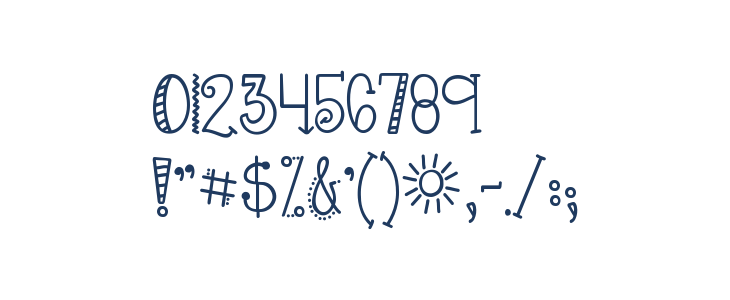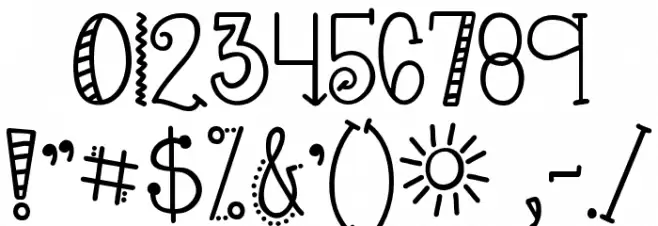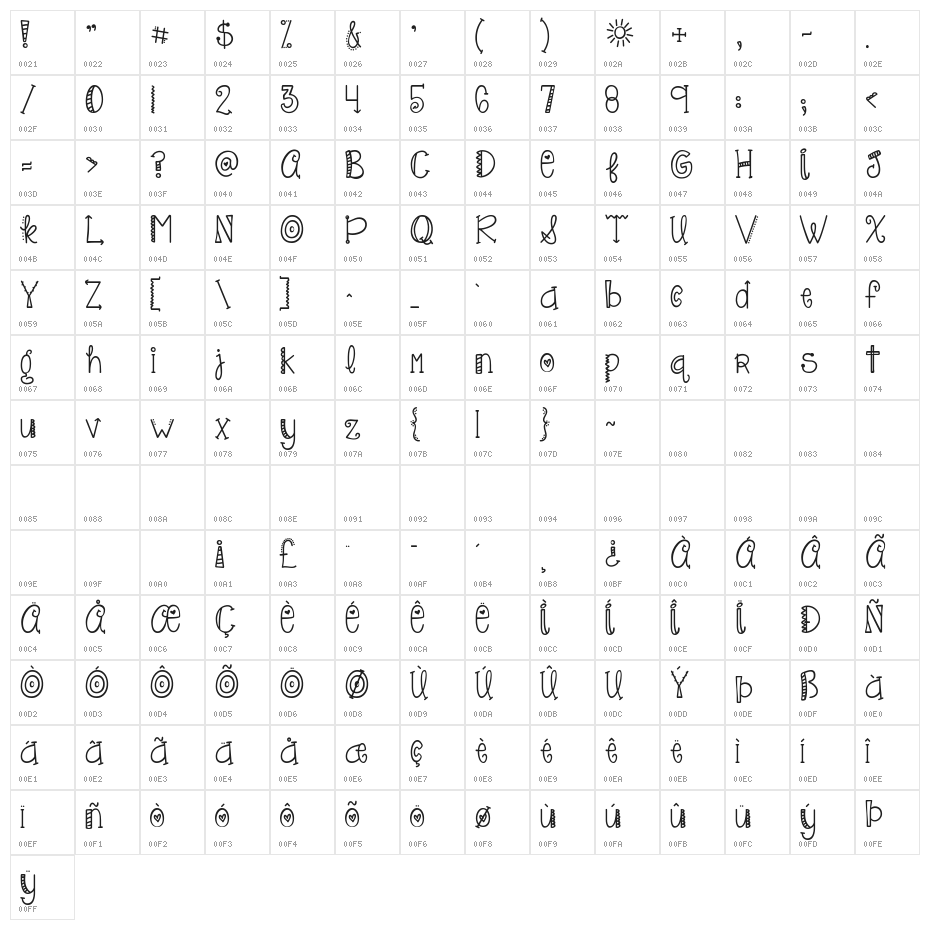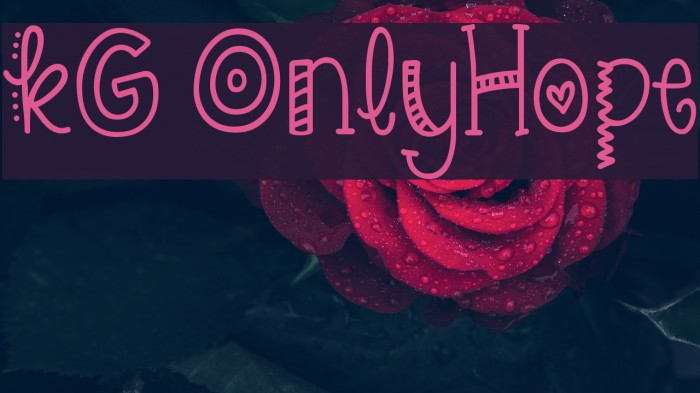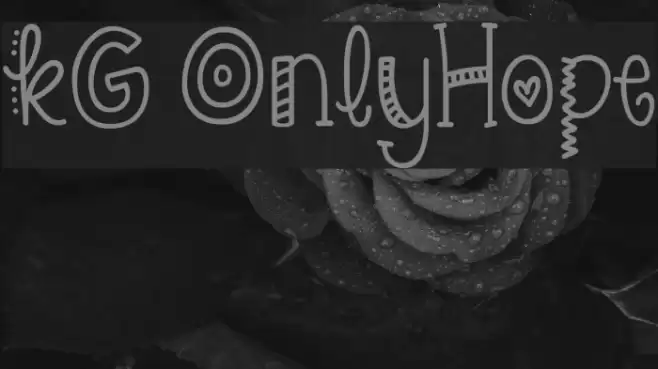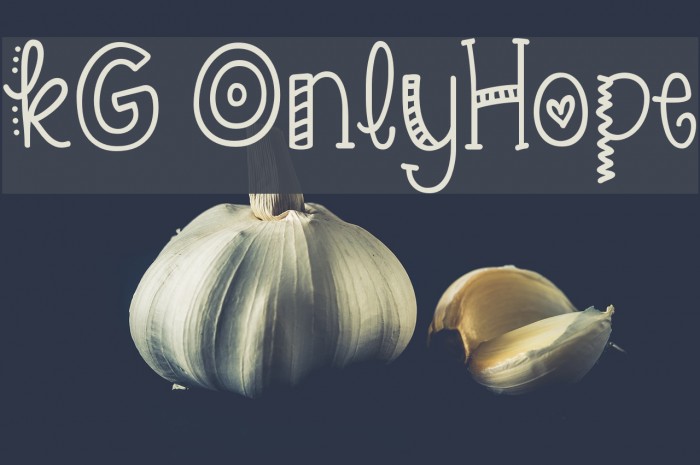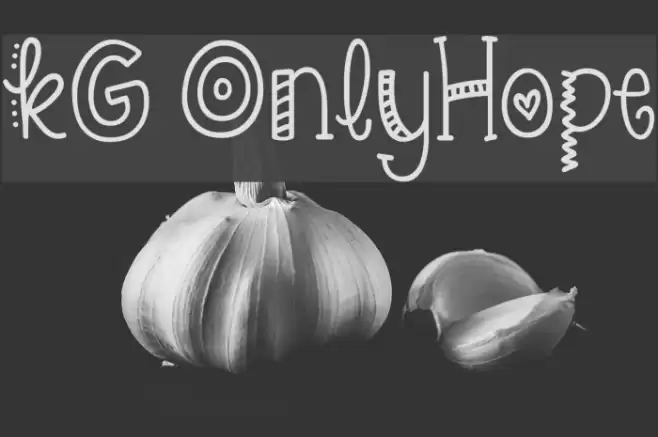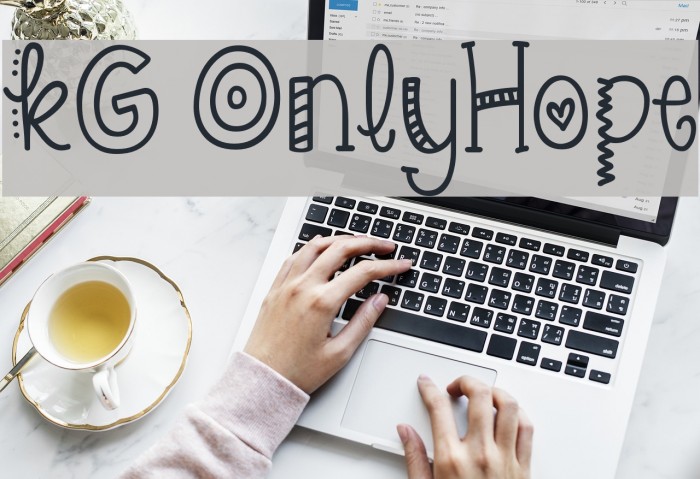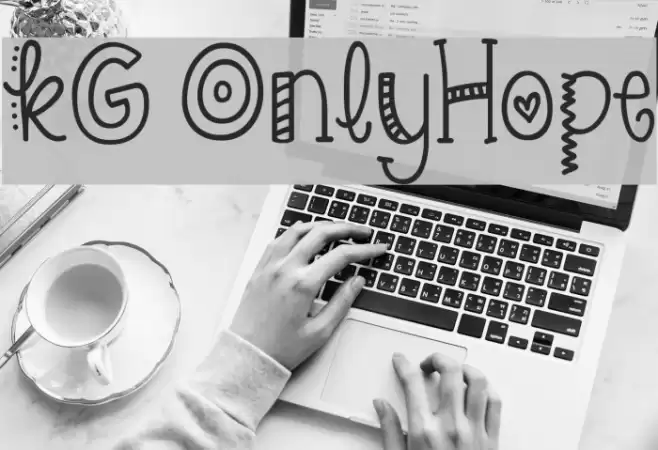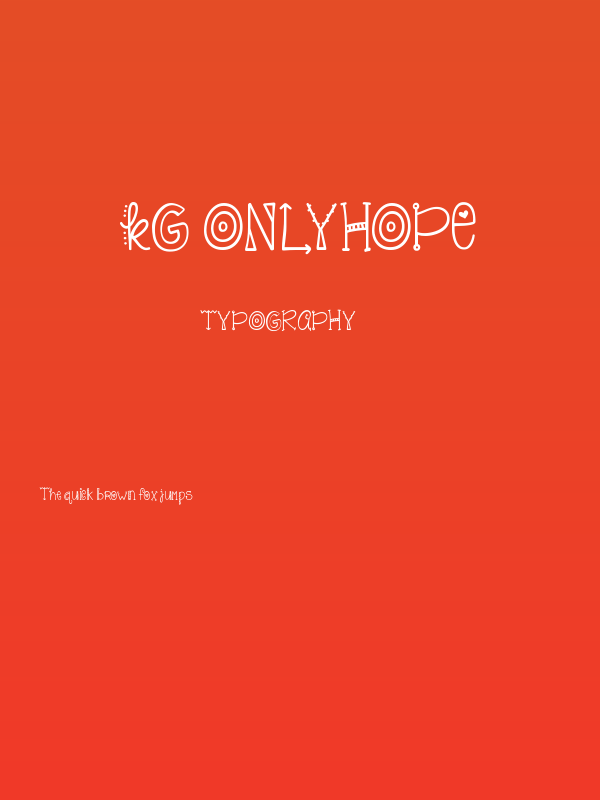
KG OnlyHope Font
KG OnlyHope Description
This playful and whimsical font features a unique blend of decorative elements and bold strokes. Each character is adorned with quirky details such as dots, stripes, and curls, giving it a lively and energetic feel. The uppercase letters are particularly expressive, with varying line thicknesses and creative embellishments. The lowercase letters maintain a consistent style, complementing the uppercase with their own charming twists. Numbers and special characters follow the same playful theme, making this font ideal for projects that require a fun and engaging aesthetic.
Proposed ProjectsIdeal for children's books, playful branding, party invitations, and creative posters.